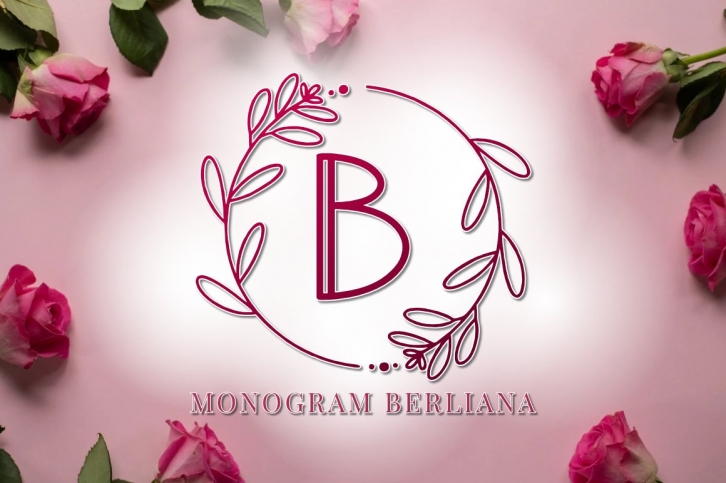
Monogram Berliana is a trendy and unique font with an authentic style. It was designed by Ayyu and it's a great choice for creative people who need such a font. It was released on June 8, 2021 and the file size is 16.83 MB. Monogram Berliana will add an organic vibe to any design idea!